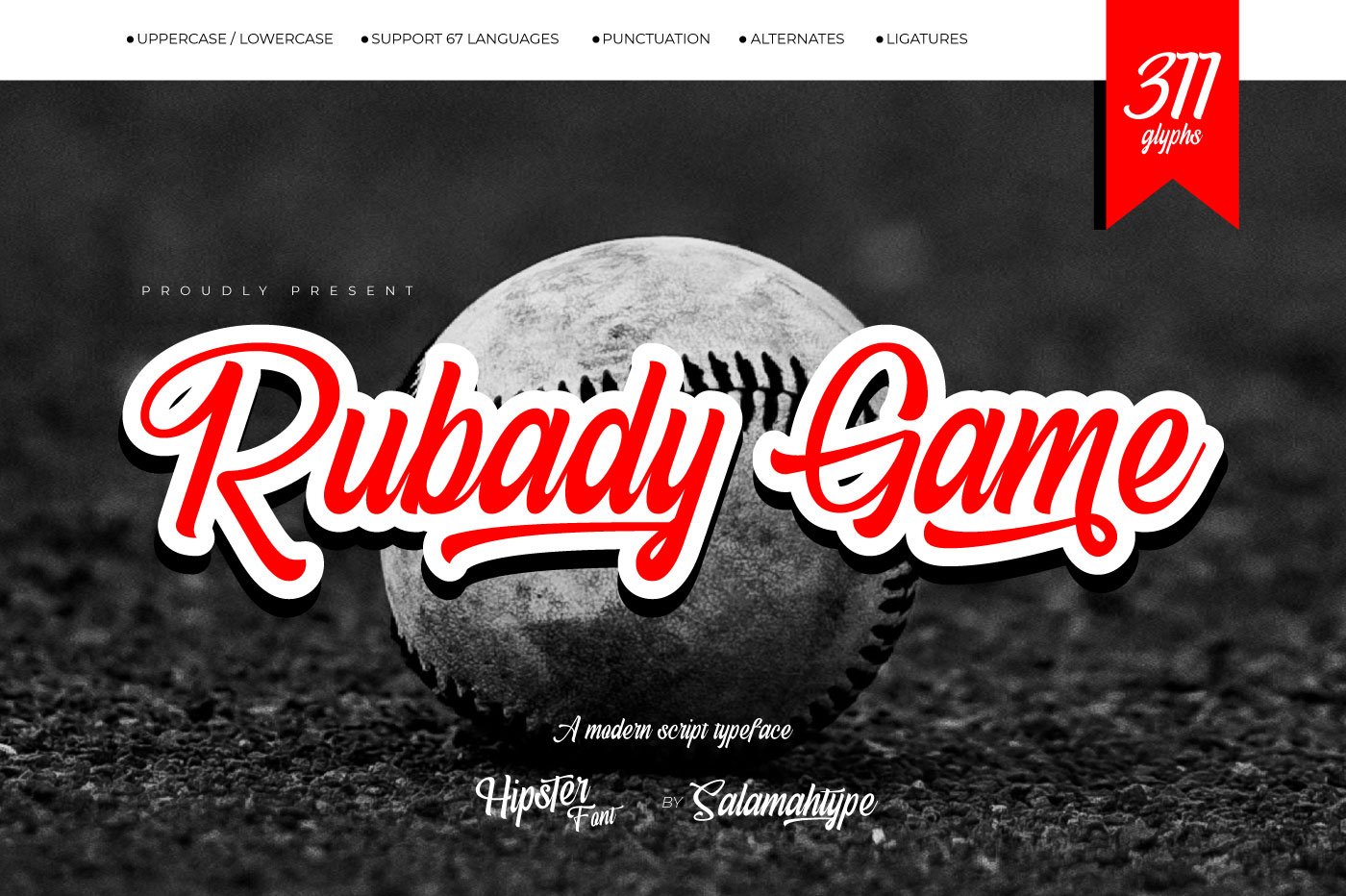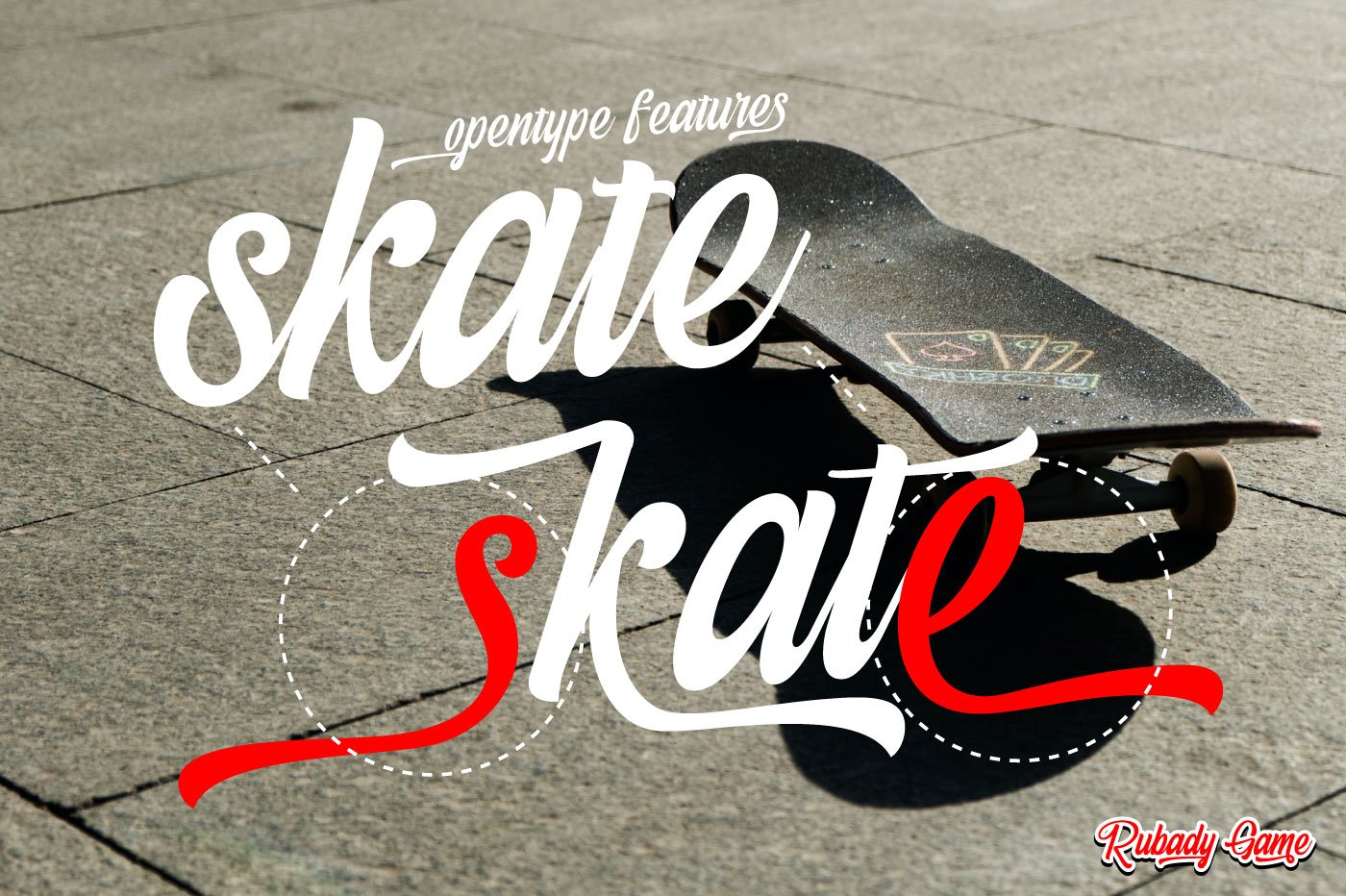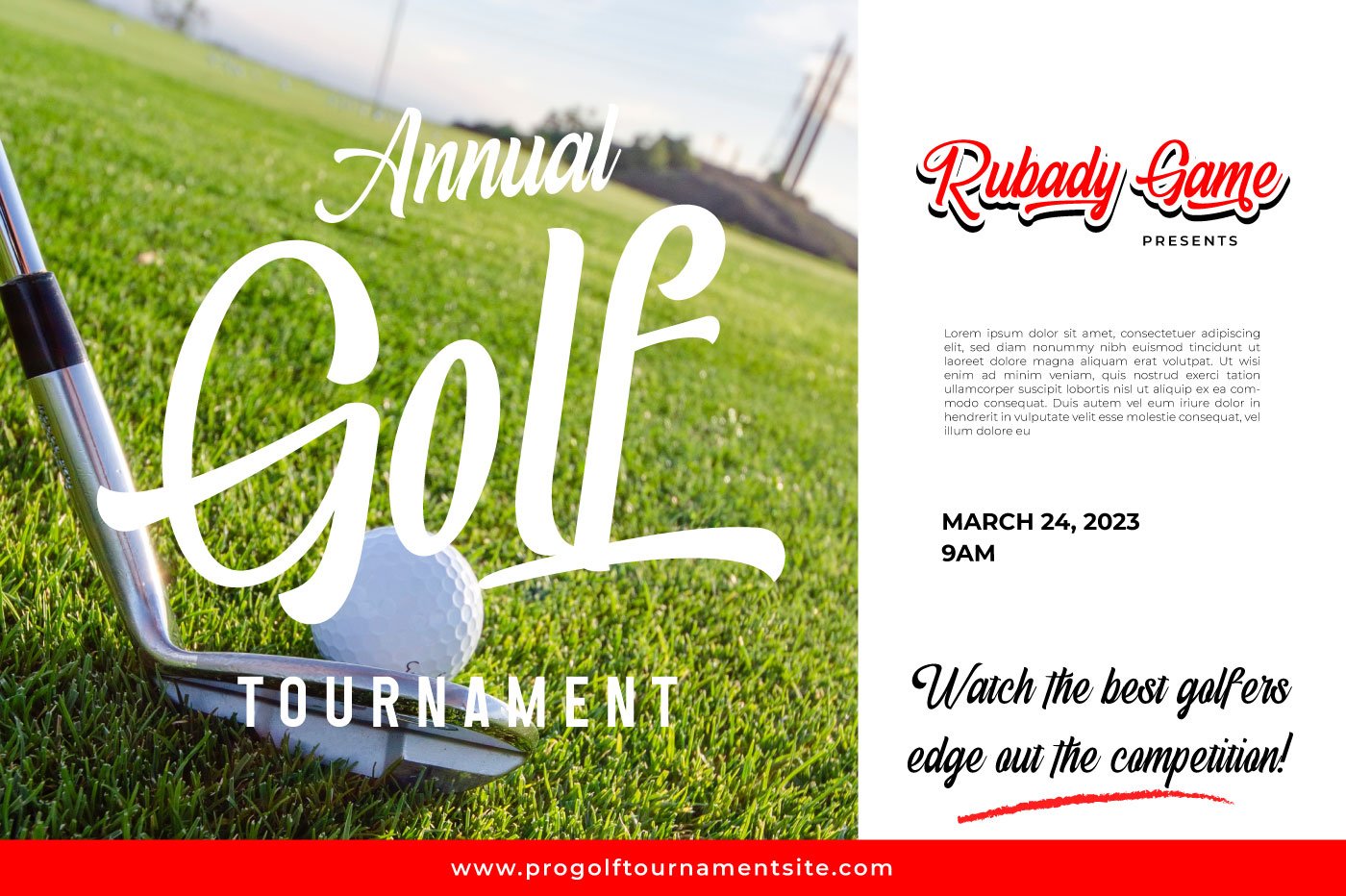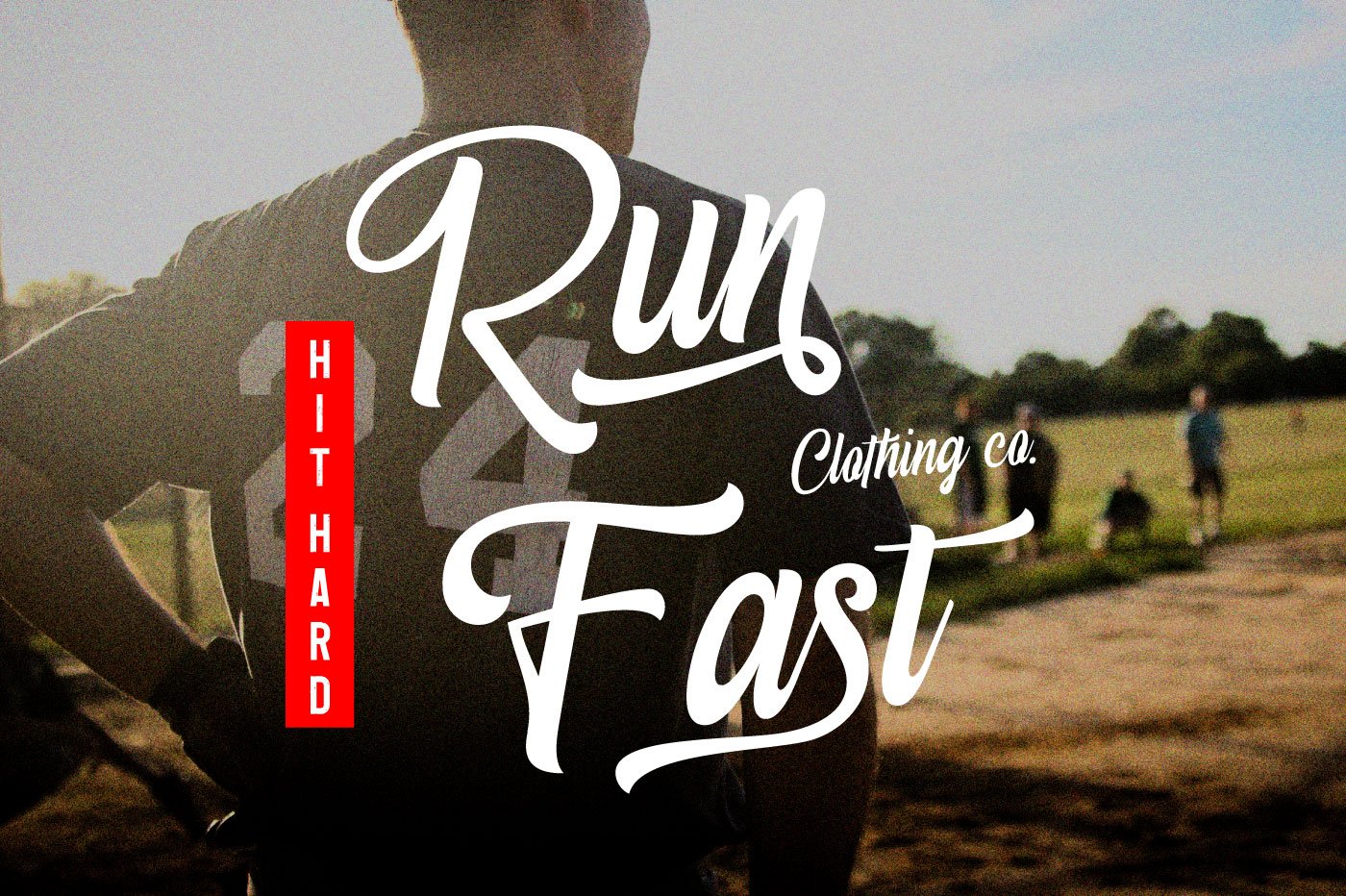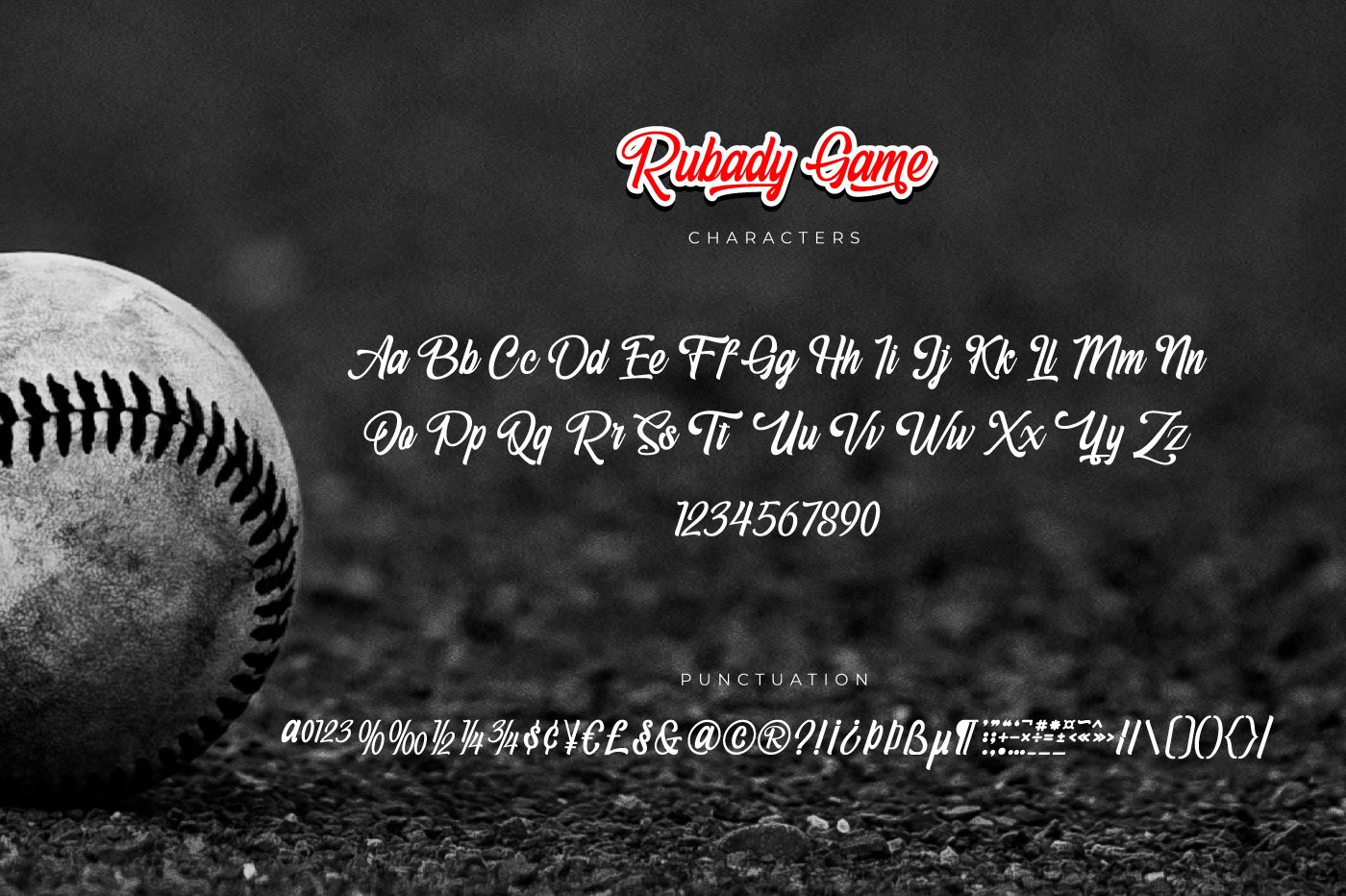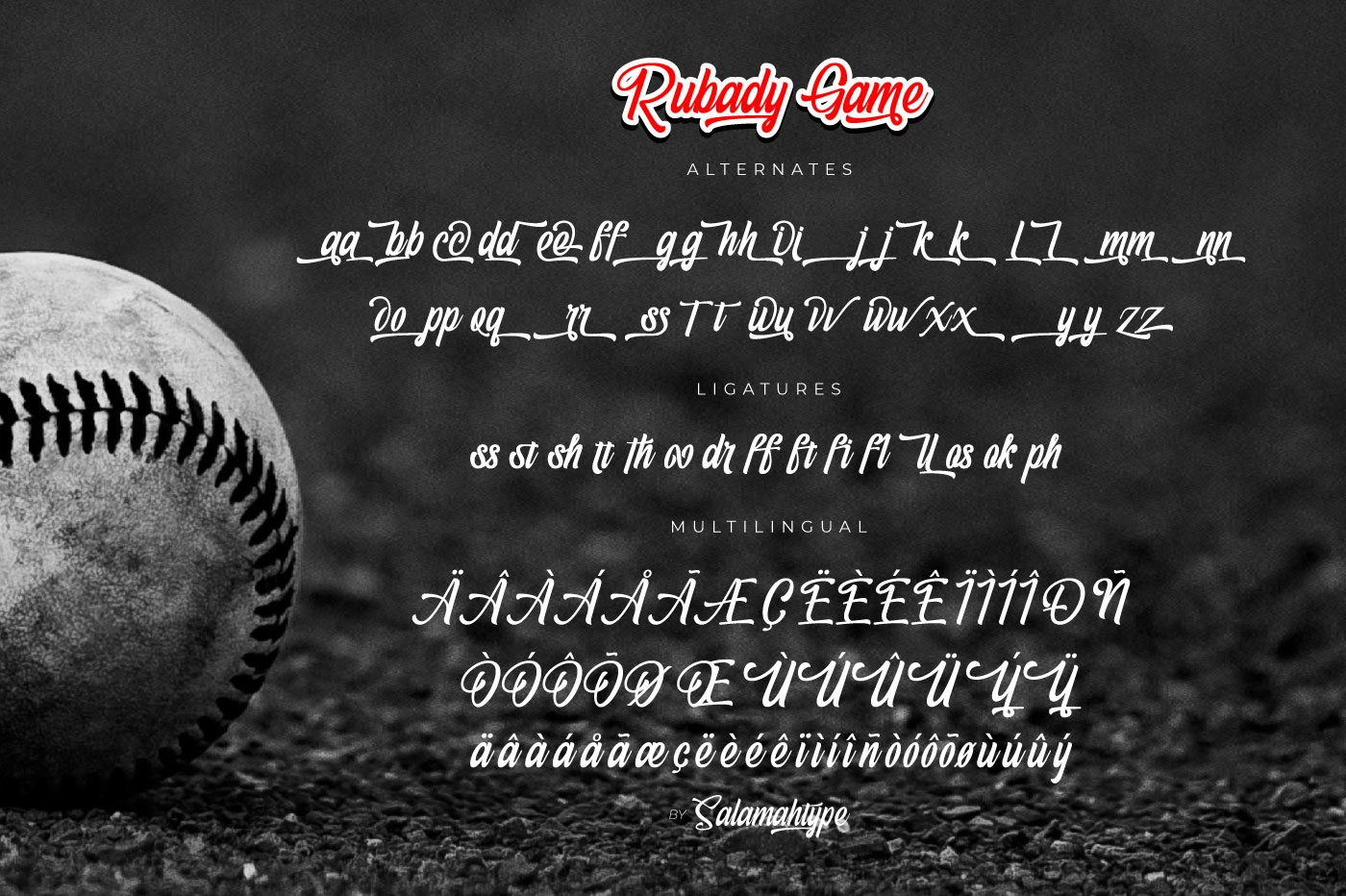
Rubady Game
Rubady Game is a script font with modern style. This font is perfect for logo, sports theme website/store, watermark, stationery, posters, flyers, social media posts, advertisements, product packaging, branding projects, product designs, label, photography, and so much more.
• Ligature and Alternate
• Standard and Multilingual Glyphs (Support 67 Languages) :
Afrikaans, Albanian, Asu, Basque, Bemba, Bena, Breton, Catalan, Chiga, Cornish, Danish, Dutch, English, Estonian, Faroese, Filipino, Finnish, French, Friulian, Galician, German, Gusii, Indonesian, Irish, Italian, Kabuverdianu, Kalenjin, Kinyarwanda, Luo, Luxembourgish, Luyia, Machame, Makhuwa-Meetto, Makonde, Malagasy, Manx, Morisyen, North Ndebele, Norwegian Bokmål, Norwegian Nynorsk, Nyankole, Oromo, Portuguese, Quechua, Romansh, Rombo, Rundi, Rwa, Samburu, Sango, Sangu, Scottish Gaelic, Sena, Shambala, Shona, Soga, Somali, Spanish, Swahili, Swedish, Swiss German, Taita, Teso, Uzbek (Latin), Volapük, Vunjo, Zulu.
Rubady Game Script